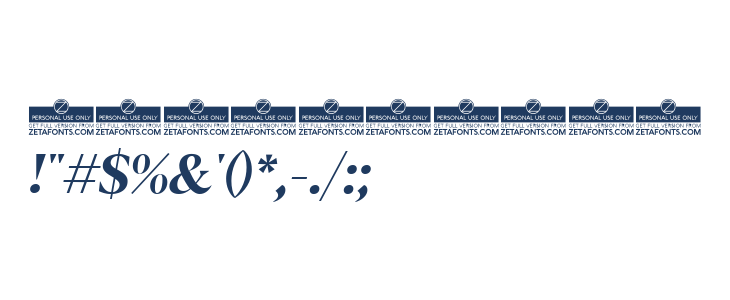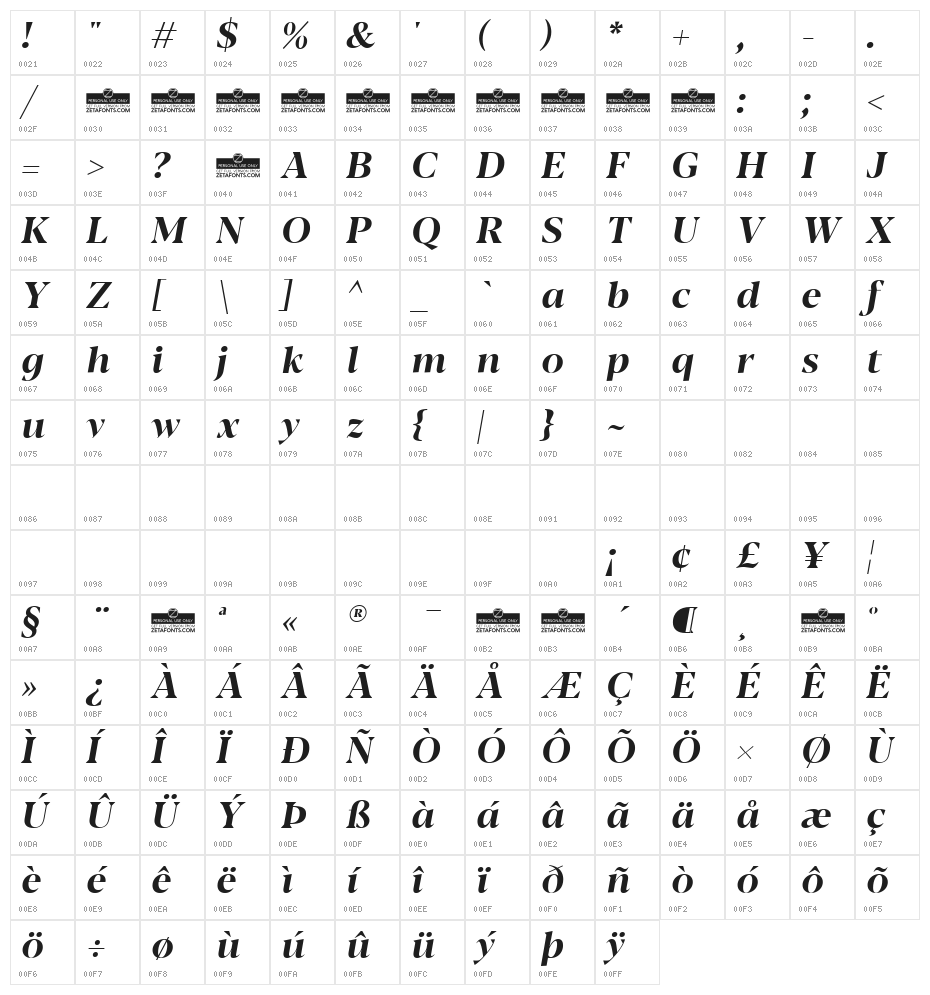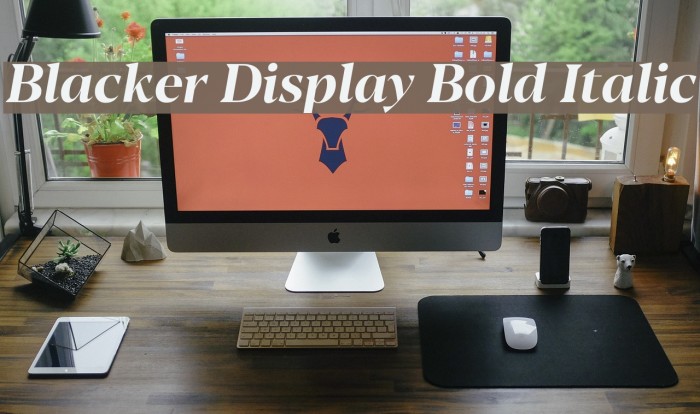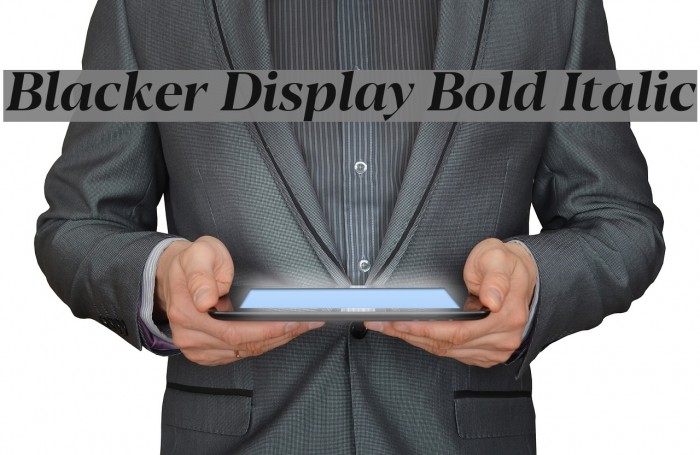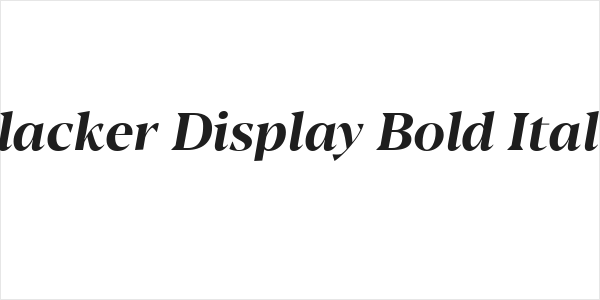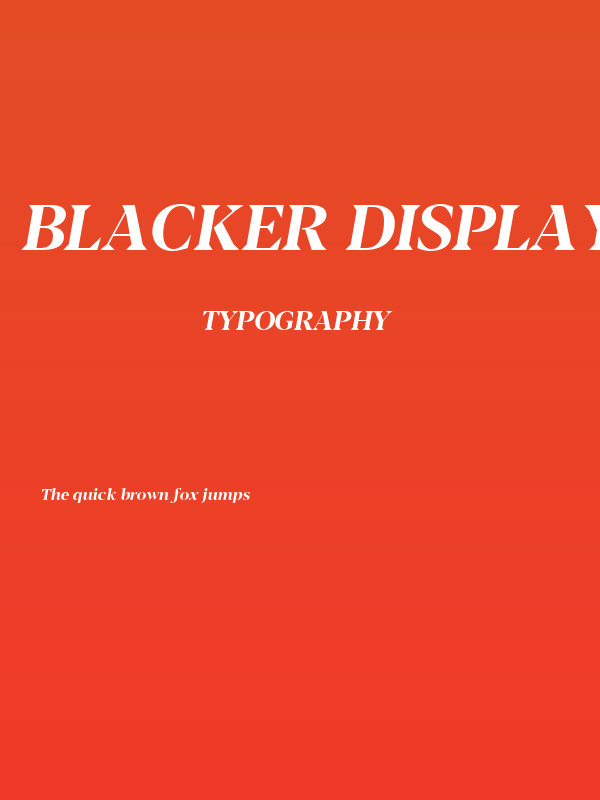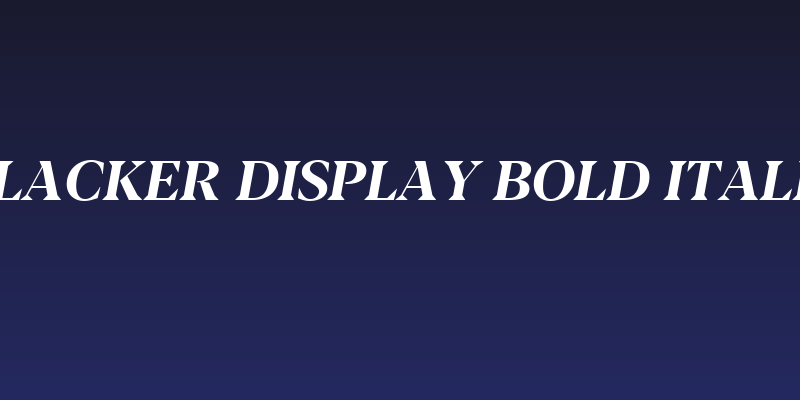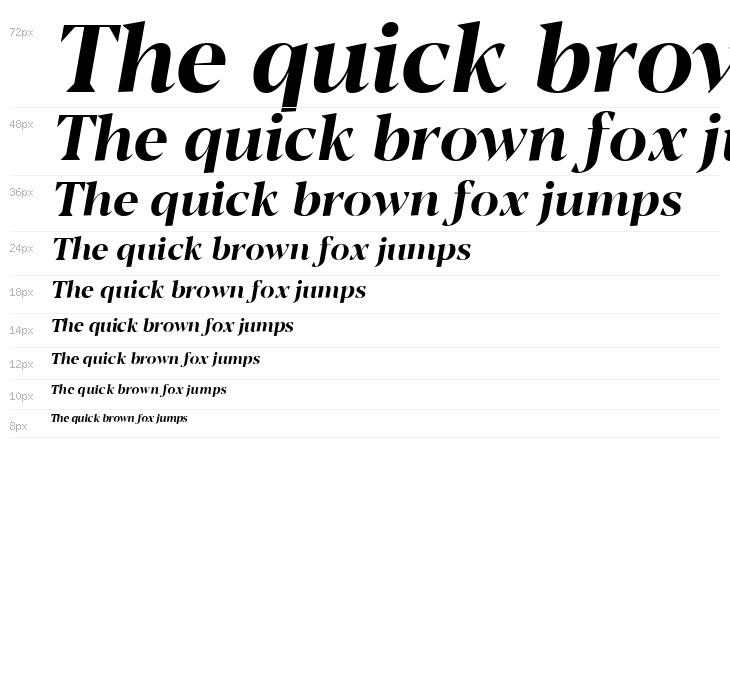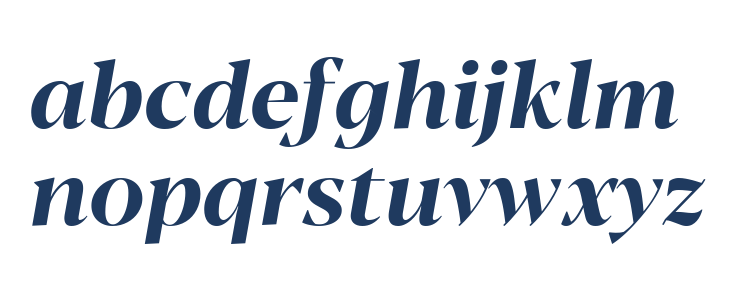
Blacker Display Bold Italic Font
Blacker Display Bold Italic Description
This font exhibits a bold and dynamic presence with its italicized style, characterized by sharp serifs and high contrast between thick and thin strokes. The uppercase letters are assertive and commanding, while the lowercase letters maintain a fluid and elegant flow. The numerals are consistent with the overall bold aesthetic, ensuring readability and impact. Special characters are designed with the same attention to detail, providing a cohesive look across all glyphs. This font is ideal for making a strong visual statement, combining traditional serif elements with a modern twist.
| Proposed Projects | Ideal for luxury branding, editorial headlines, and impactful advertising campaigns. |